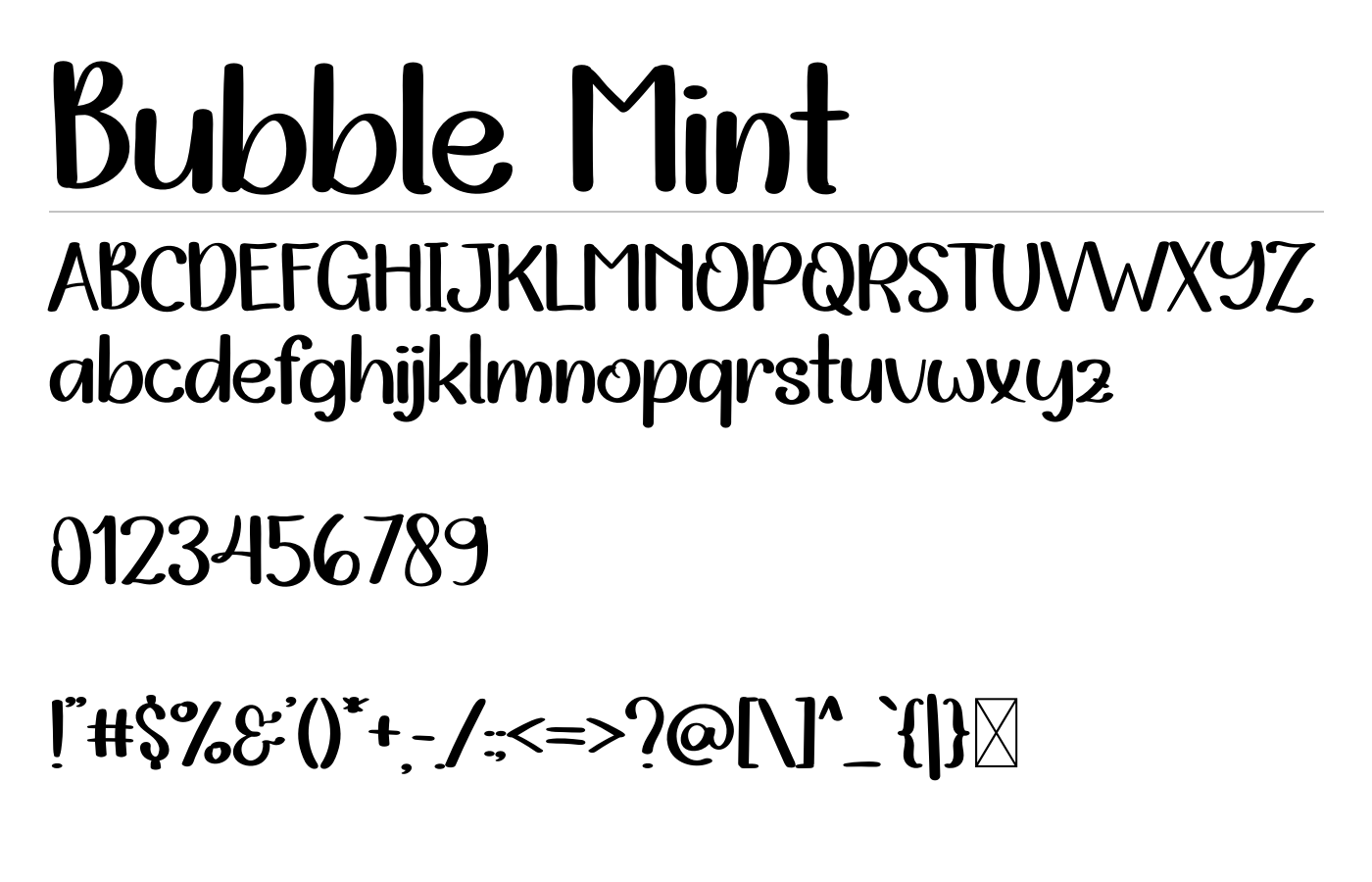
Bubble Mint is a playful and friendly sans serif font with a hand-drawn feel, featuring rounded, slightly irregular letterforms that add warmth and charm. Its medium weight, high x-height, and casual strokes make it ideal for fun, informal designs such as children’s books, invitations, and creative branding where a lively and approachable personality is desired.
Bubble Mint Font